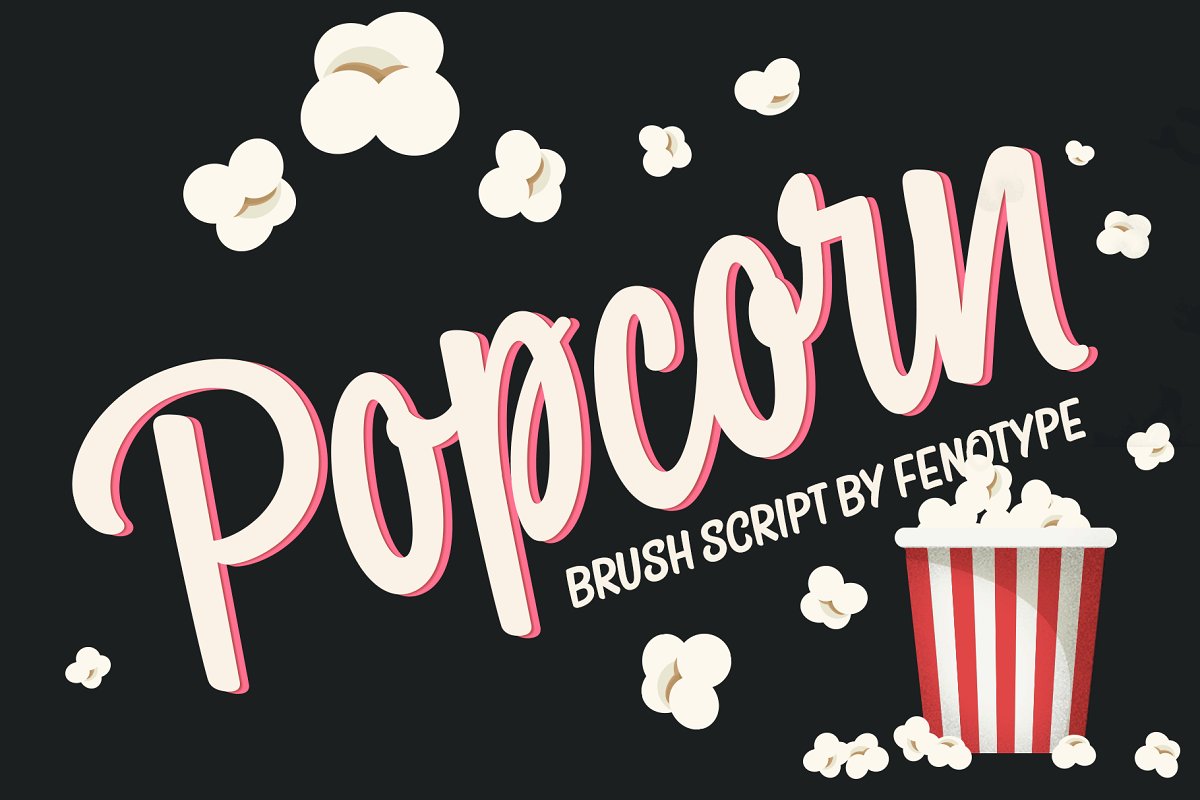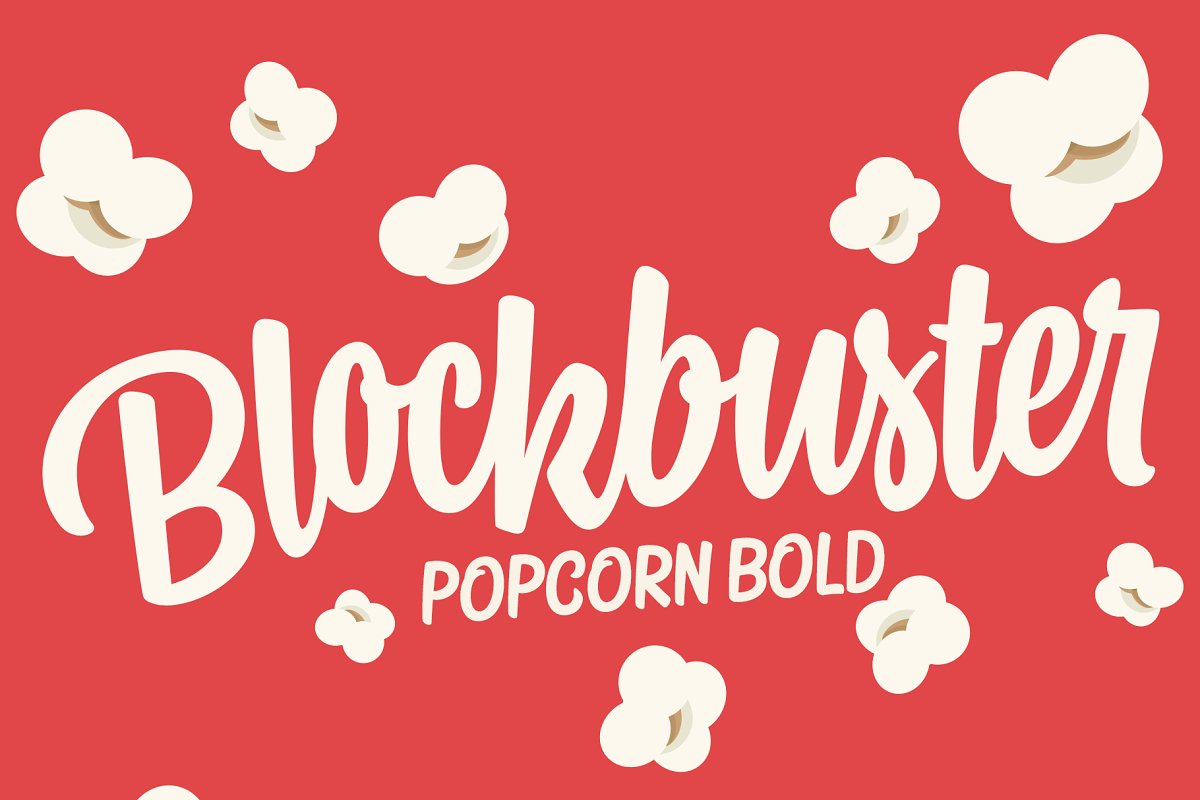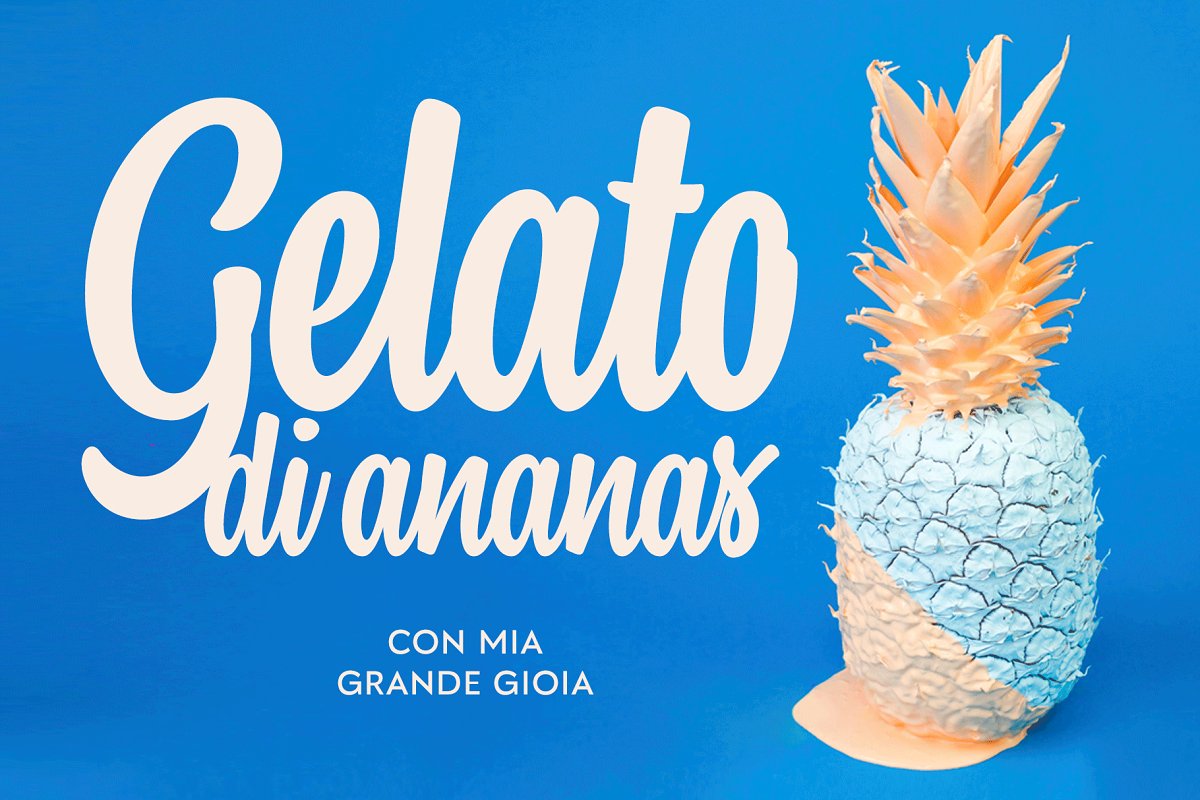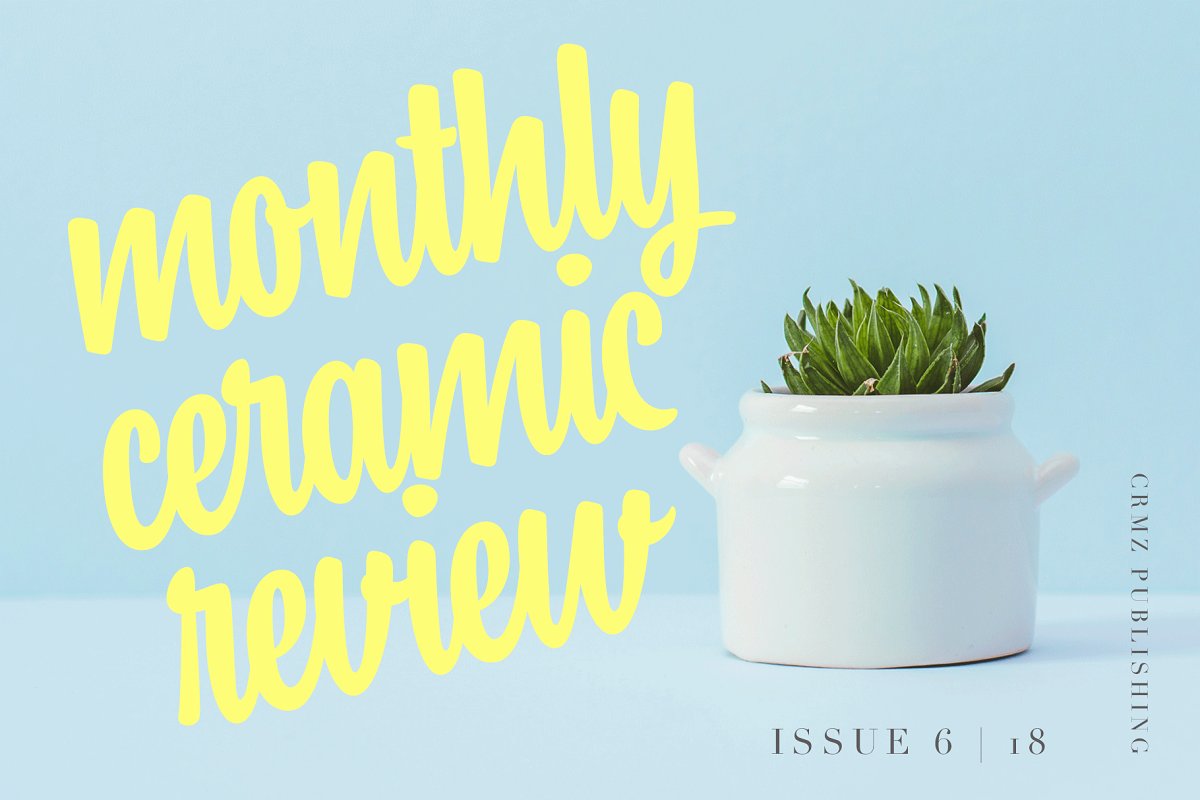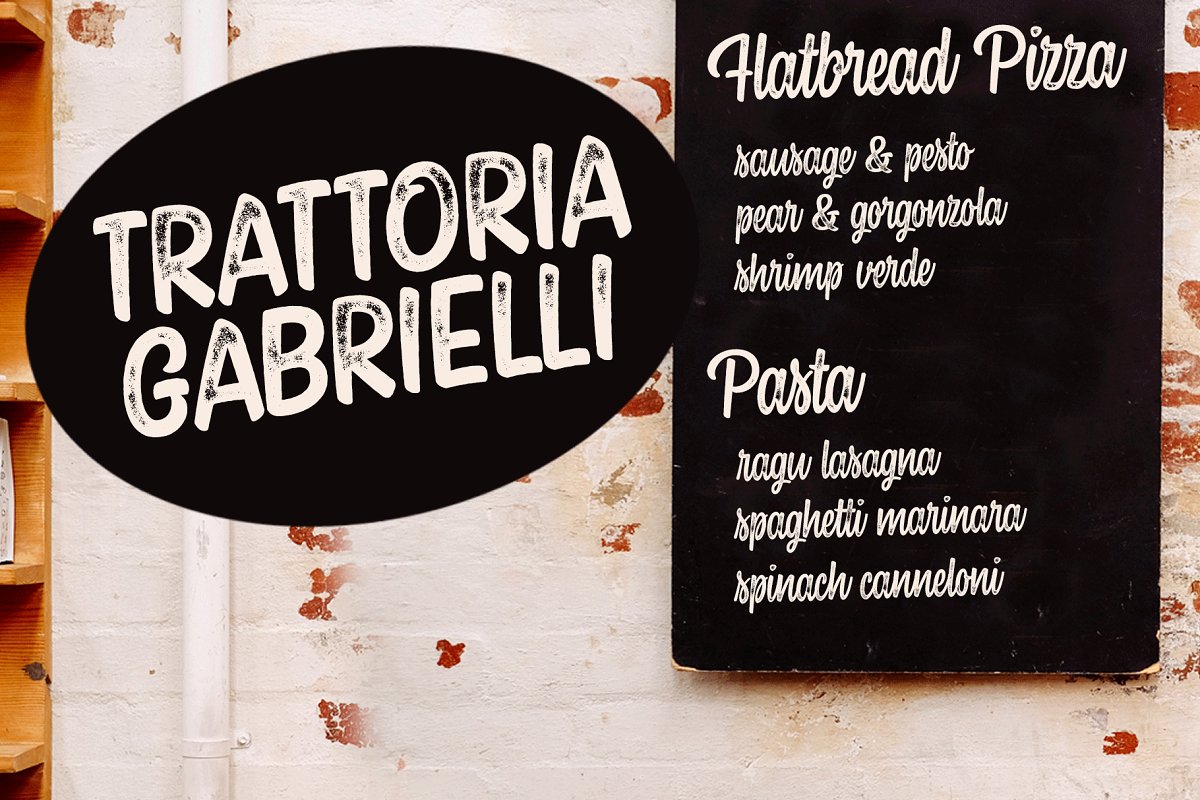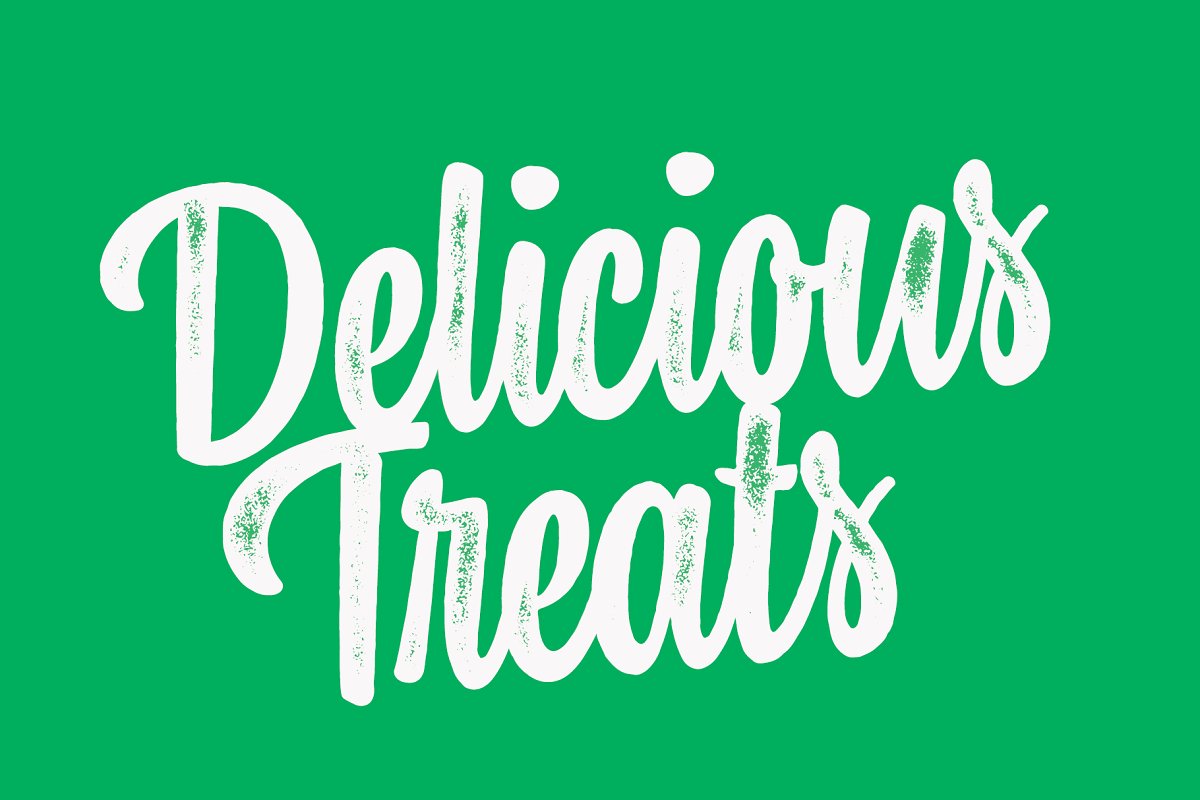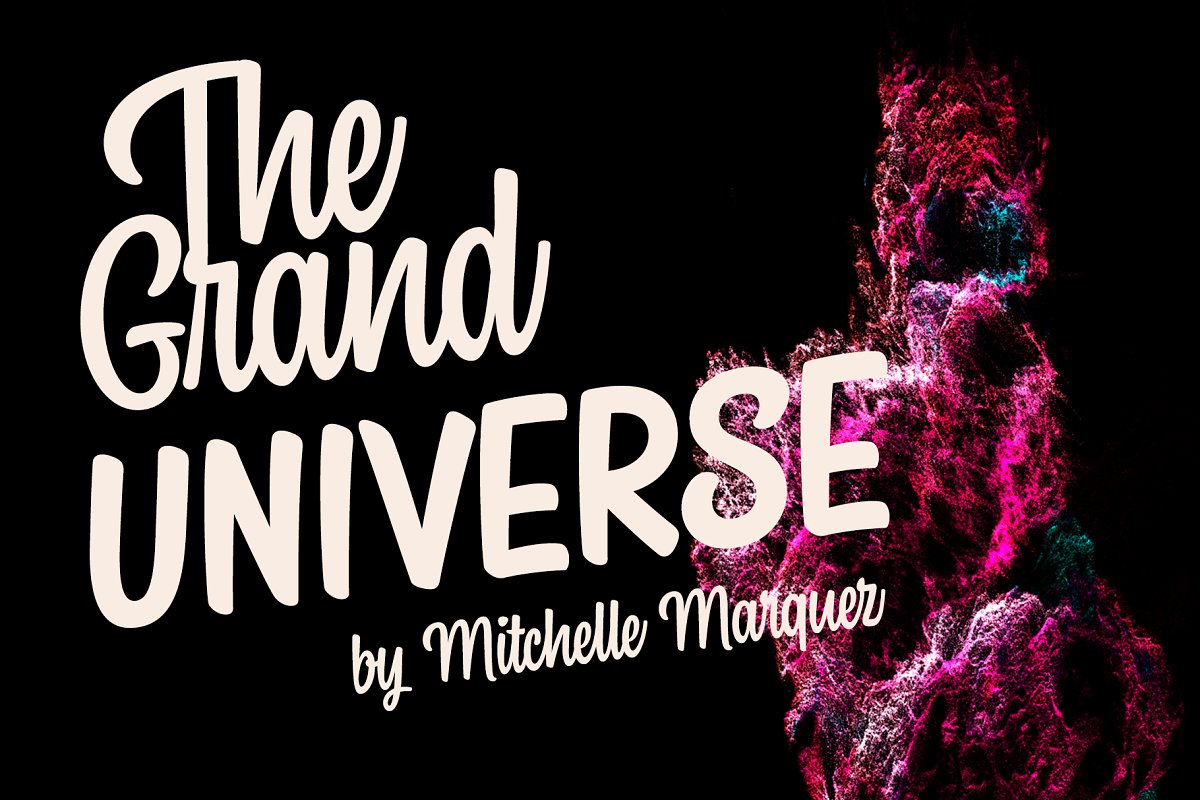
About the Popcorn Brush Script Font
INTRO SALE -50% off!Popcorn is a brush script family of Regular and Bold weight and a set frisky caps, Casuals, Popcorn is a striking clear and smooth display type with short descenders and ascenders -it’s great for stacked layouts too, Popcorn scripts are equipped with plenty of contextual alternates and ligatures, all set in Standard Ligatures to keep the smooth flow
Besides that there’s also Swash alternates for every standard letter, Popcorn scripts are PUA encoded so you can access alternates with most design softwares, Popcorn Print is a rugged version of Popcorn with rough outlines and nice print texture, Popcorn is a great display family with roots in the past but smooth polished contemporary features